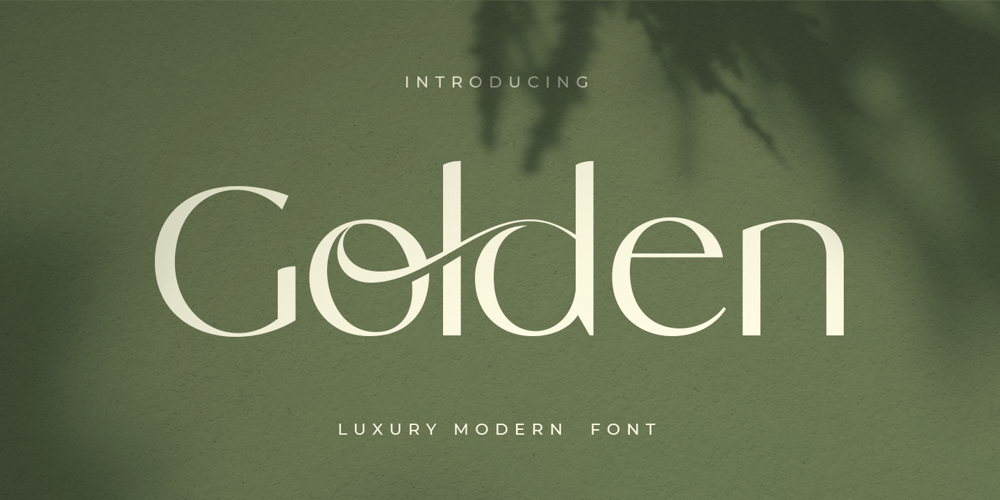
Golden Style Font Family was designed by Zamroni Hamzah and published by Sensatype Studio. Golden Style contains 1 styles and family package options. Golden is a Modern Luxury Elegant Sans Serif Font with Sharp shape make your design look classy and elegantA new SansSerif Font that we created special for Headline, Title and more stand out typography needs, with extra ligature that will add your variations. It’s so perfect to add your style and headline overview. And specially for Golden font, we crafted for unique style and modern feels so enjoy to create any project that will show your main idea out.Golden Modern Luxury Elegant Sans Serif Font ready with: Any options to get creative variations (combination of Ligature Characters) Preview as a inspirations that you can do with Golden font Ready with All characters Wish you enjoy our font. ๐